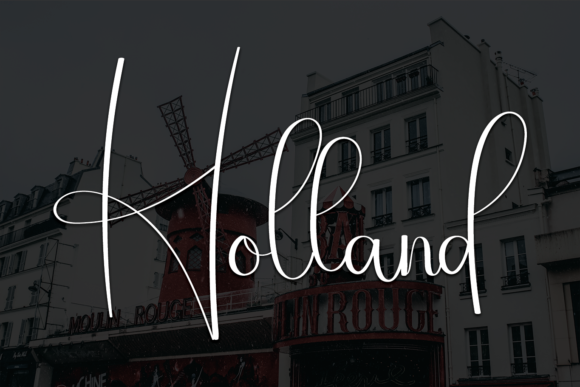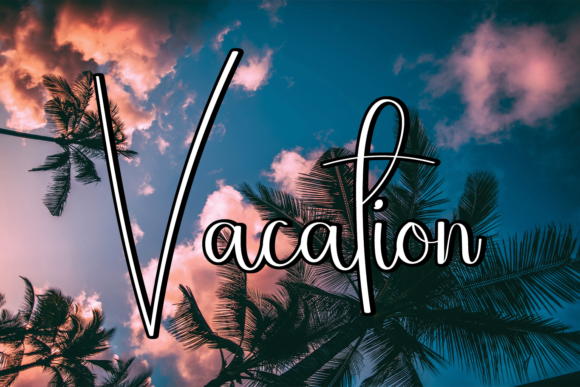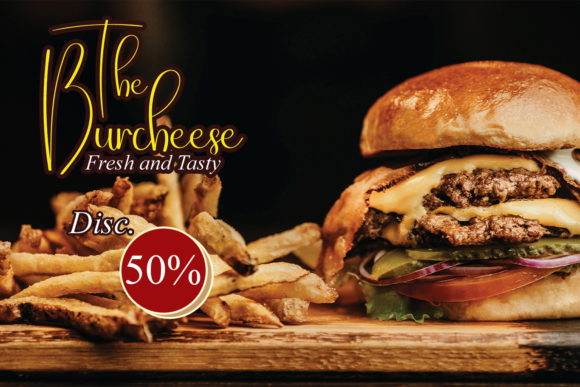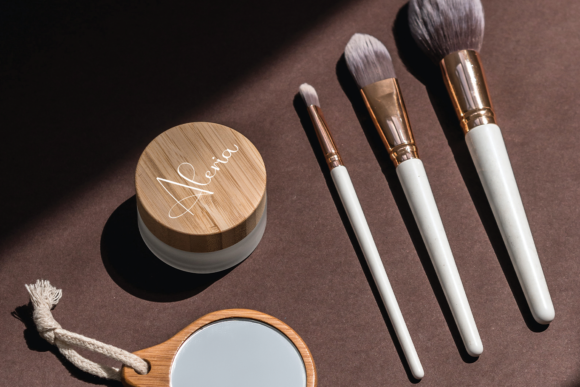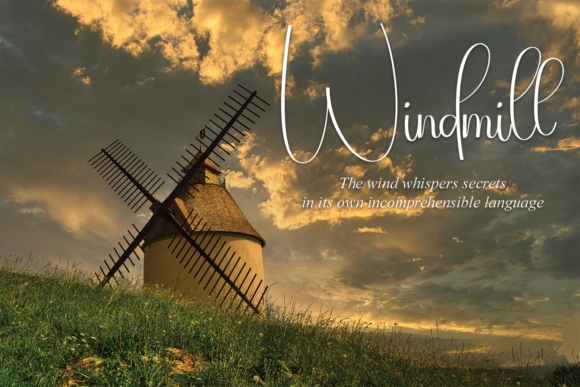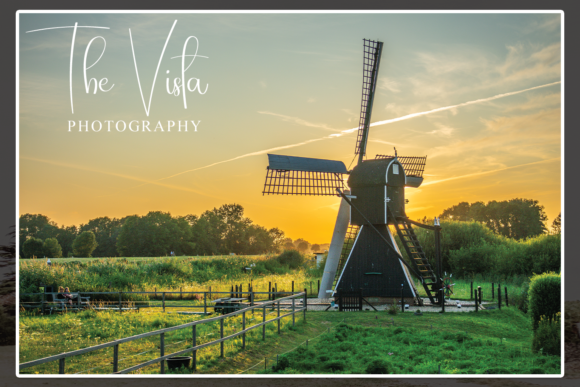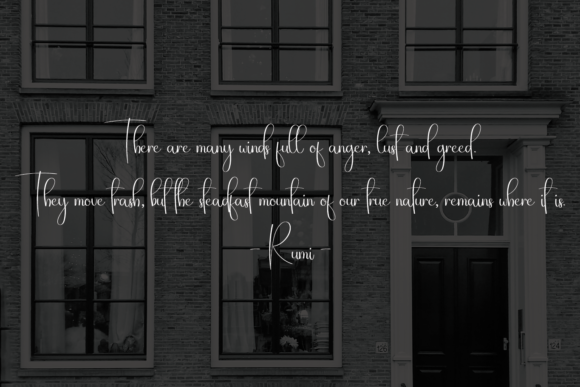
Holland Font
About Holland Font
Holland is a stylish and delicate handwritten font. It maintains its classy calligraphic influences while feeling contemporary and fresh. Add it confidently to your projects, and you will love the results.